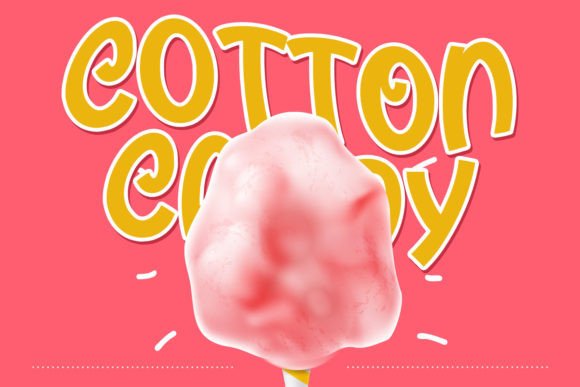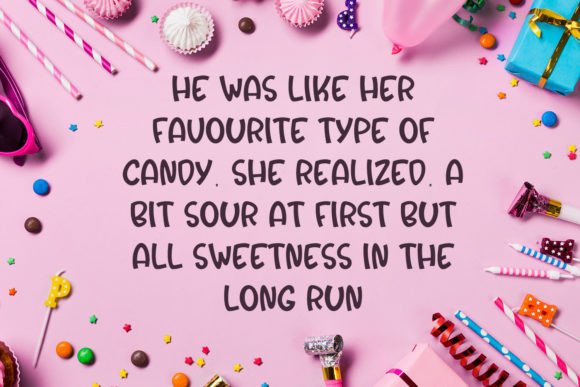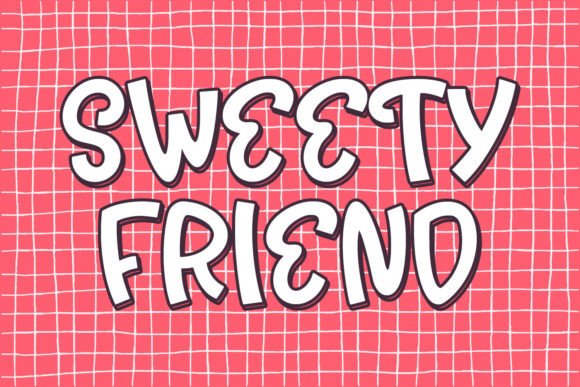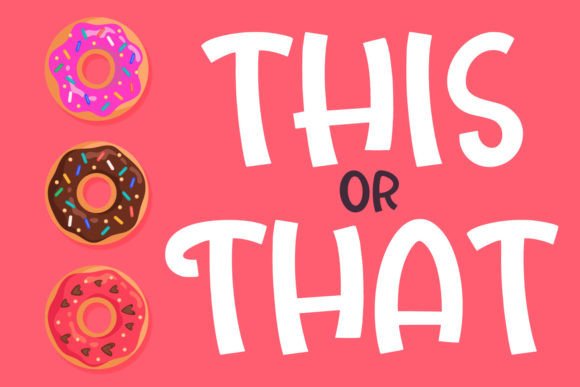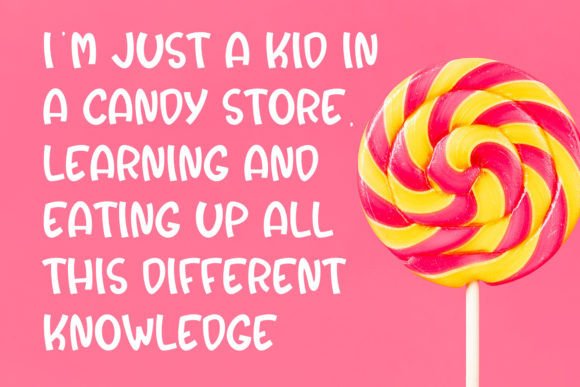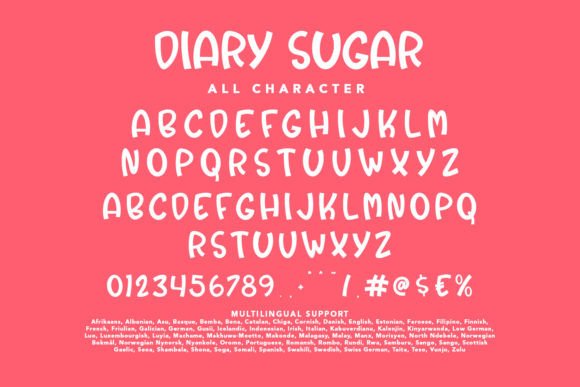
Have you ever stared at a blank page, waiting for inspiration to strike? For many designers, it’s that moment of creative block that sparks the search for the perfect font to bring a project to life. Maybe you’re working on a children’s book and need a font that captures the playful essence of childhood wonder. Or perhaps you’re crafting a greeting card that requires a dash of sweetness to convey your message.
Enter Diary Sugar Font, a delightful display font that’s sure to add a touch of whimsy to your designs. With its charming, hand-drawn feel and varied letter heights, this font is perfect for projects that require a playful and approachable vibe. Whether you’re working on branding materials, children’s books, or greeting cards, Diary Sugar Font is a valuable addition to any designer’s toolkit.
Diary Sugar Font Key Features
- Font Family: Diary Sugar, with multiple styles (Regular, Italic, Bold, Bold Italic)
- Unique Characteristics: The font features a unique, hand-drawn design with subtle imperfections, giving it a personal and artistic touch
- Font Weight: The font has a medium weight, making it suitable for body text and headings, while also allowing for clear readability
Diary Sugar Font Review
I recently had the chance to work with the “Diary Sugar Font” and I must say it’s a mixed bag. On the one hand, there are some things that really stand out ✨.
- Cute and Whimsical Appearance: The font has a unique, hand-drawn feel that adds a touch of personality to any project.
- Good Legibility: Even at smaller sizes, the font remains easy to read, making it suitable for body text or captions.
However, there are also some limitations to consider ⚠️:
- Limited Character Set: The font only includes a limited range of characters, which may not be suitable for languages that require a wider character set.
- No Variations: There are no bold, italic, or condensed variations of the font, which can limit its versatility.
Overall, I’d say the “Diary Sugar Font” is a solid choice for projects that require a playful, handwritten feel. While it may not be the most versatile font, its unique appearance and good legibility make it a great option for the right project.
Tips for Getting the Most Out of Diary Sugar Font
Use Diary Sugar Font for creative projects that require a unique and playful touch.
Combine the font with watercolor or hand-drawn elements for a whimsical look.
Diary Sugar Font is perfect for:
Baby shower invitations and decorations
Personalized journals and planners